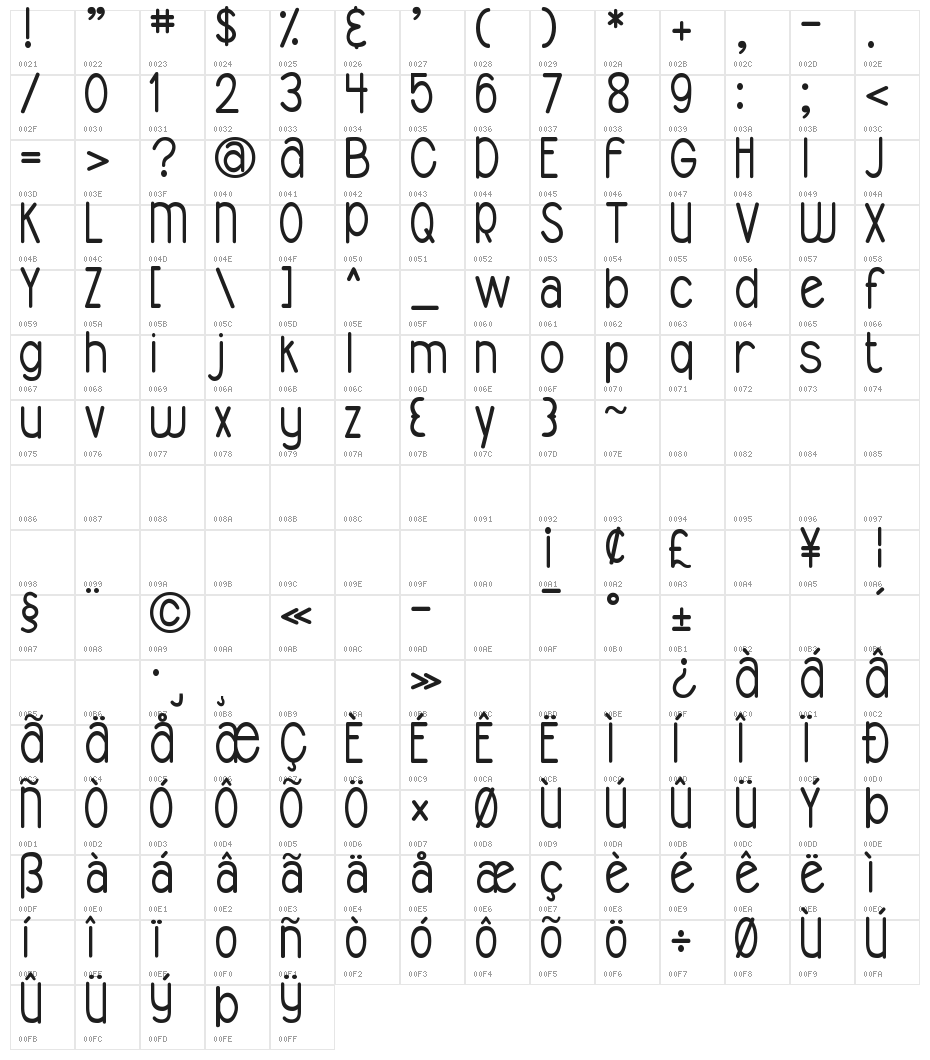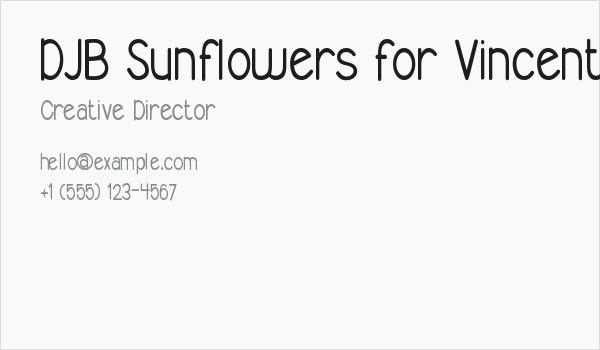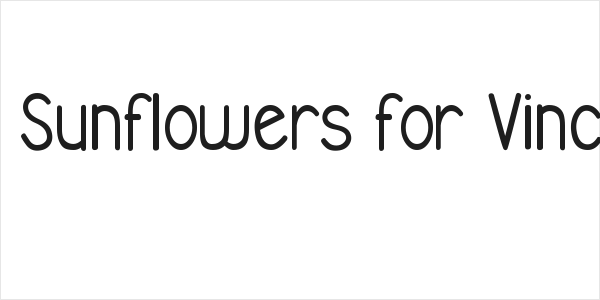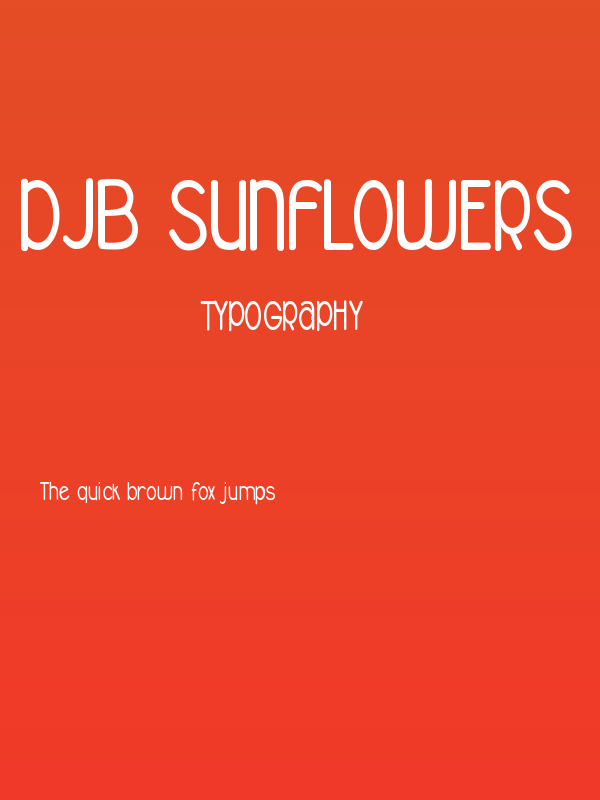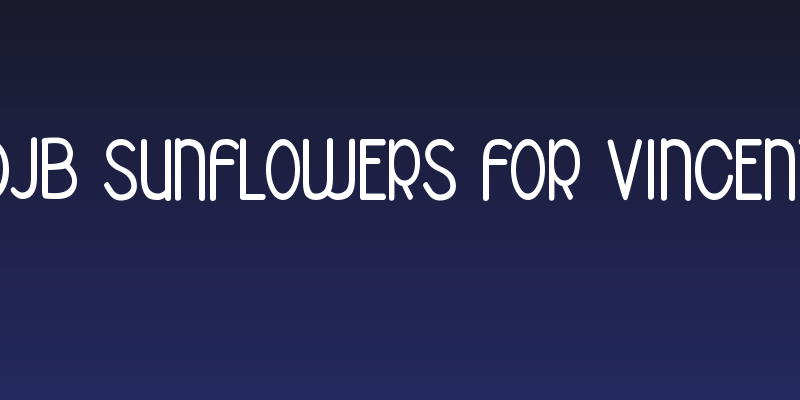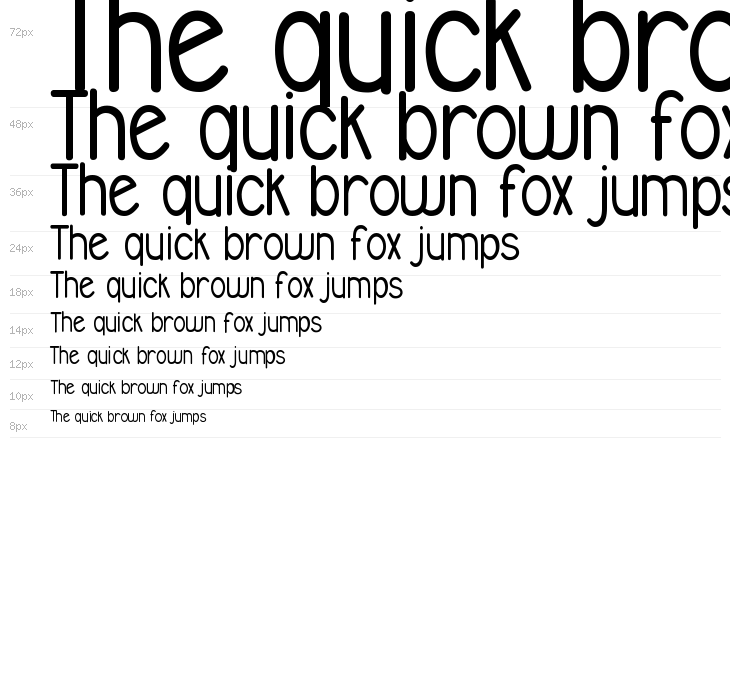
DJB Sunflowers for Vincent Font
DJB Sunflowers for Vincent Description
This font features a playful and rounded style, characterized by its smooth curves and uniform line thickness. The letters are slightly elongated with a consistent stroke width, giving it a friendly and approachable appearance. The rounded edges and lack of sharp angles contribute to its casual and informal feel. The numerals and special characters maintain the same rounded aesthetic, ensuring visual harmony across all elements. This font is versatile and can be used in various contexts where a lighthearted and welcoming tone is desired.
| Proposed Projects | Ideal for children's books, playful branding, greeting cards, and casual invitations. |